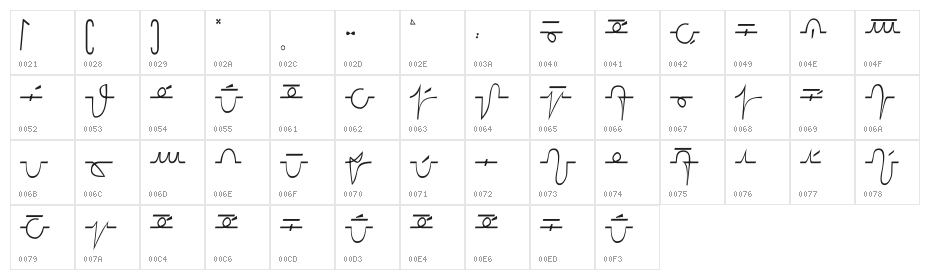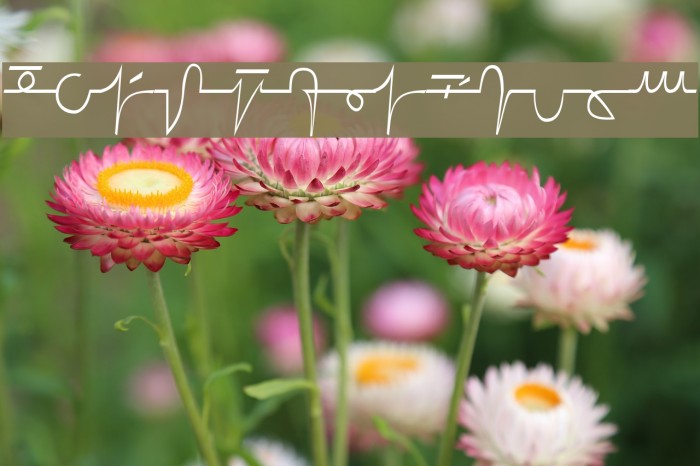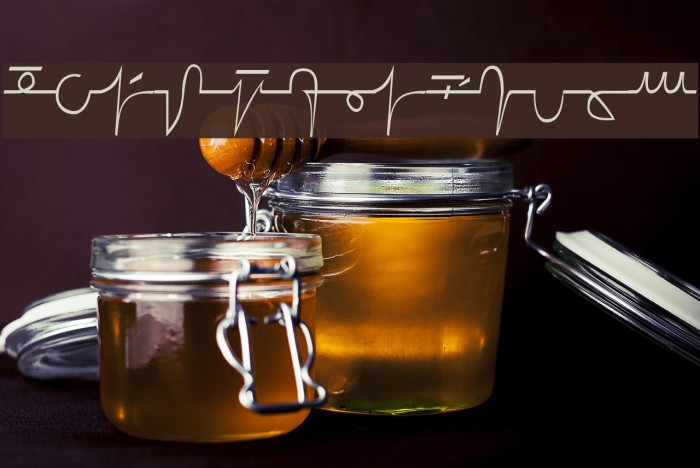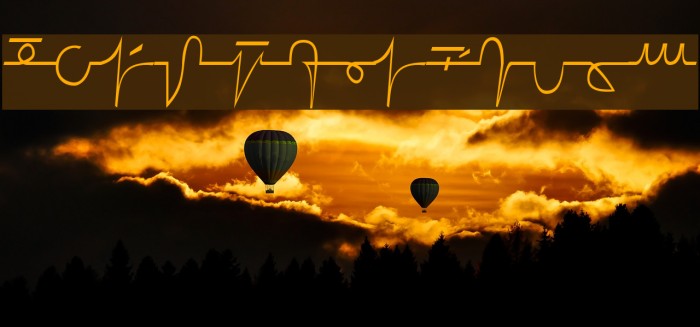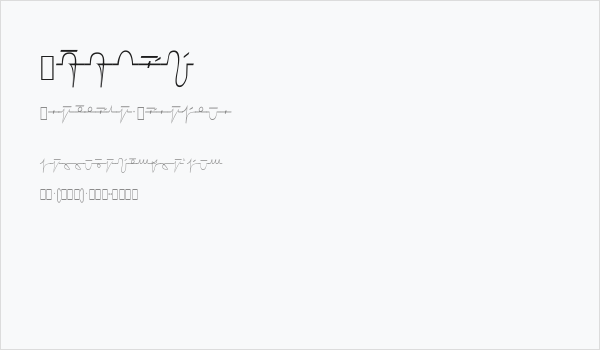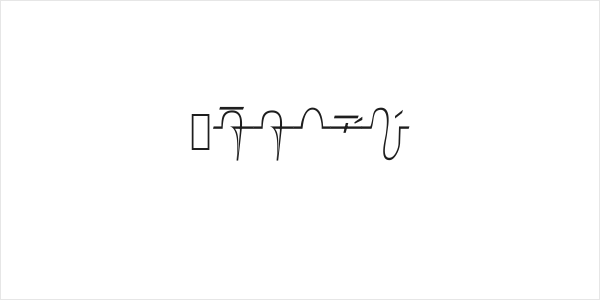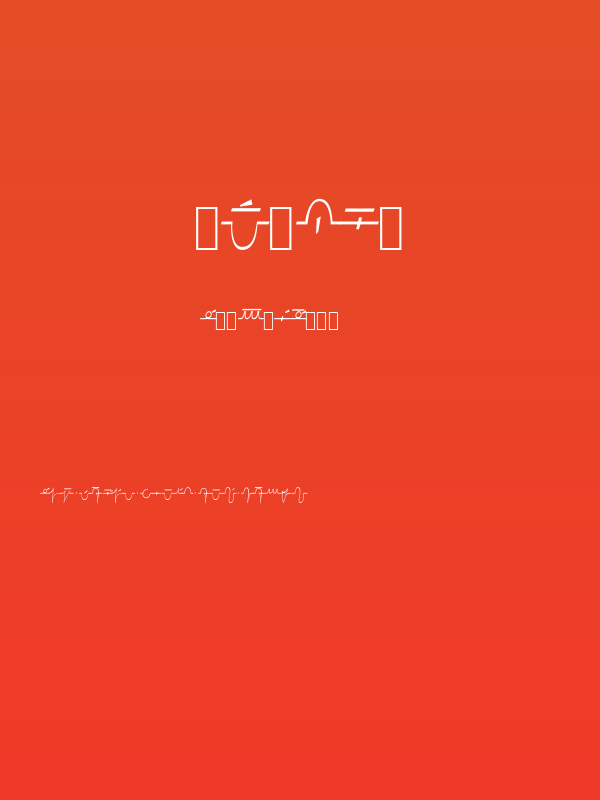
Eufnix Font
Eufnix Description
This is not a valid font. The image appears to contain a series of abstract symbols and shapes rather than recognizable alphanumeric characters. The design is highly stylized and does not conform to standard typographic conventions, making it unsuitable for typical text representation.